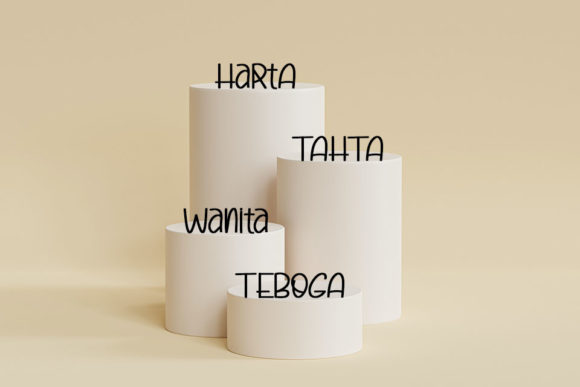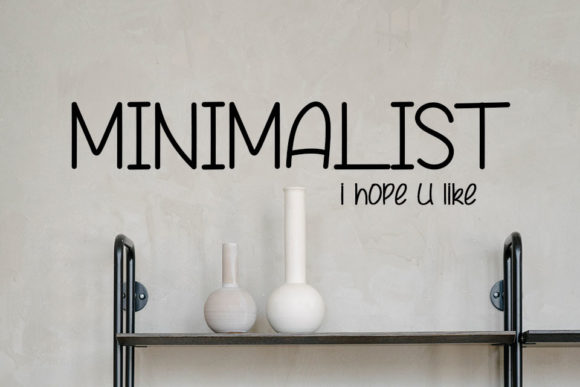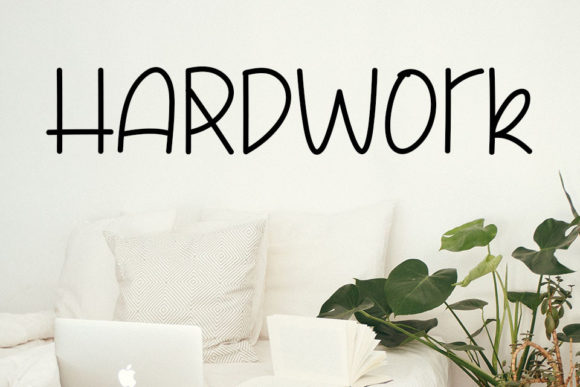
Reborn Arrival Font
About Reborn Arrival Font
Reborn Arrival is an exquisite handwritten font masterfully designed to become a true favorite. It maintains its classy calligraphic influences while feeling contemporary and fresh. Fall in love with it, and bring your projects to the highest levels!